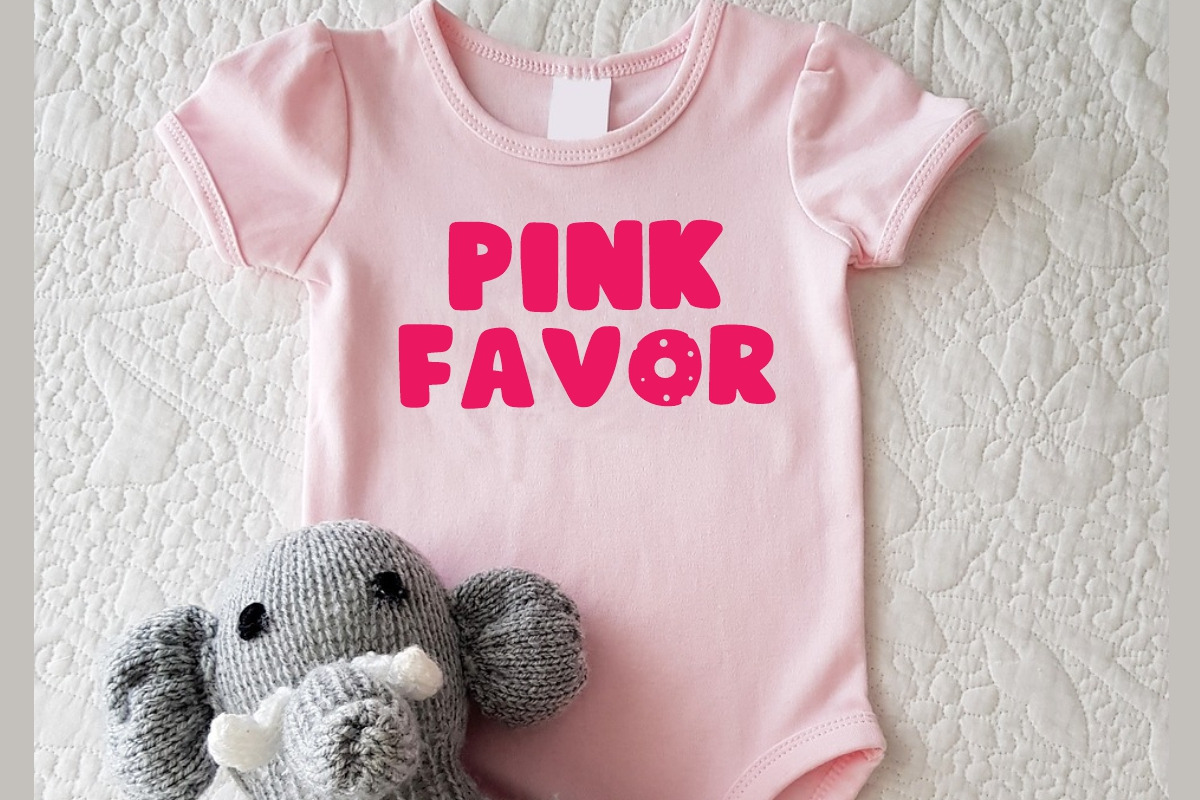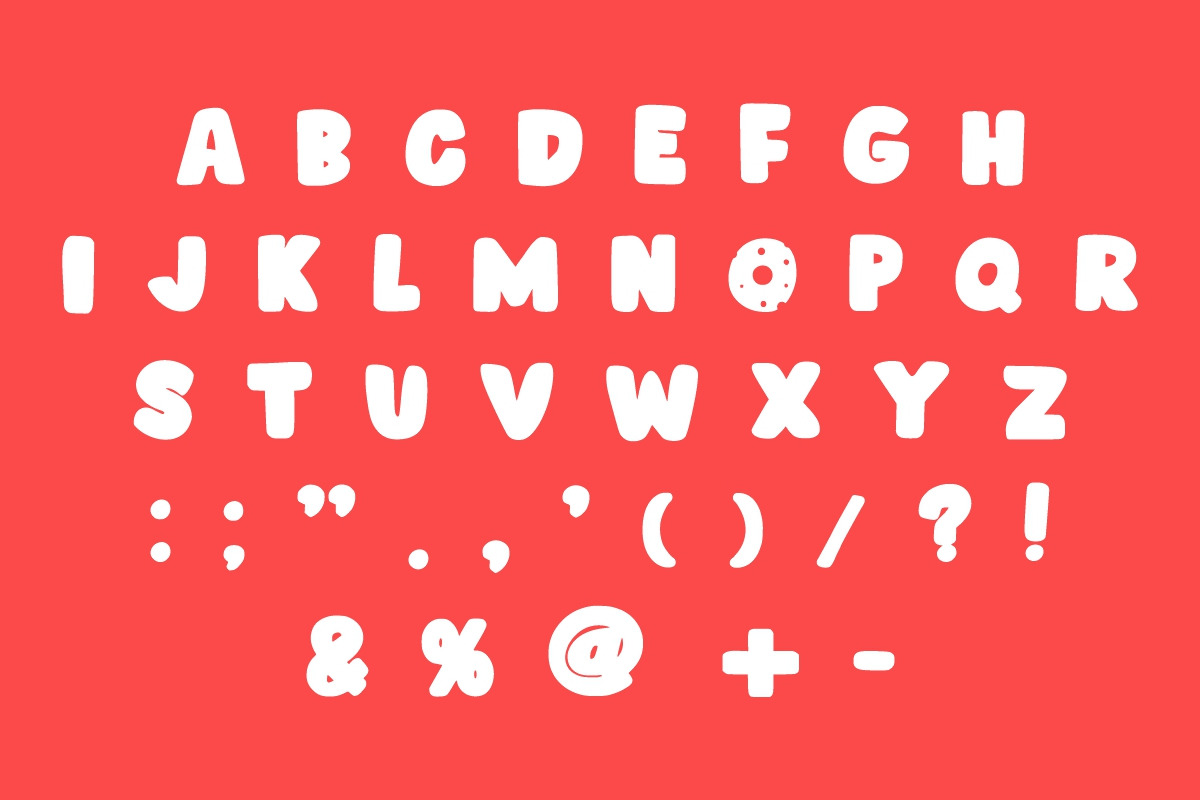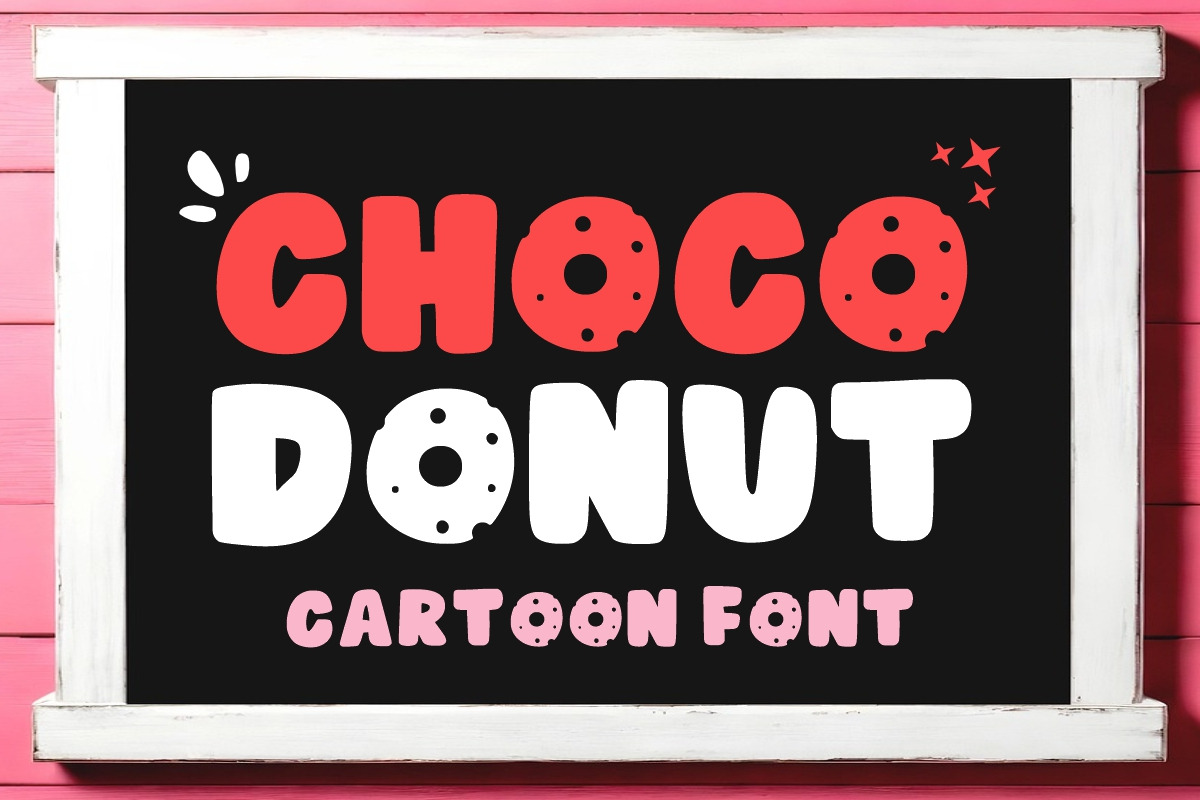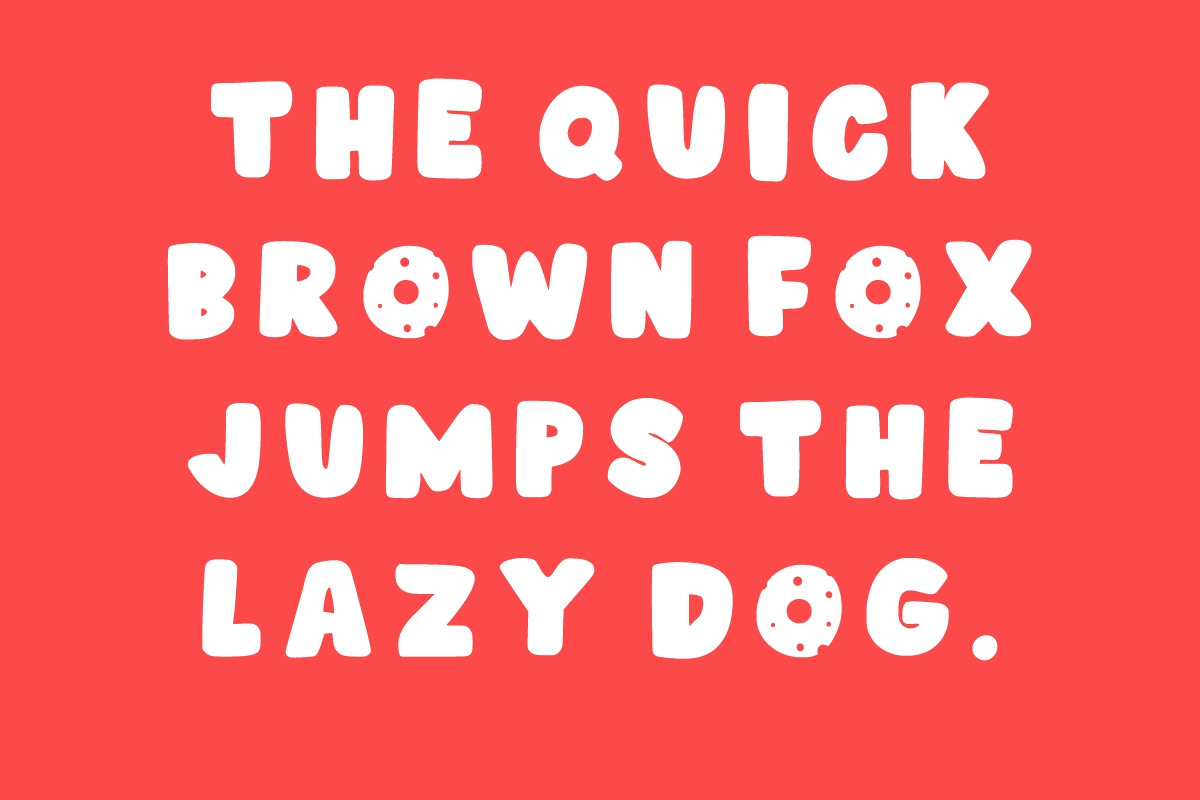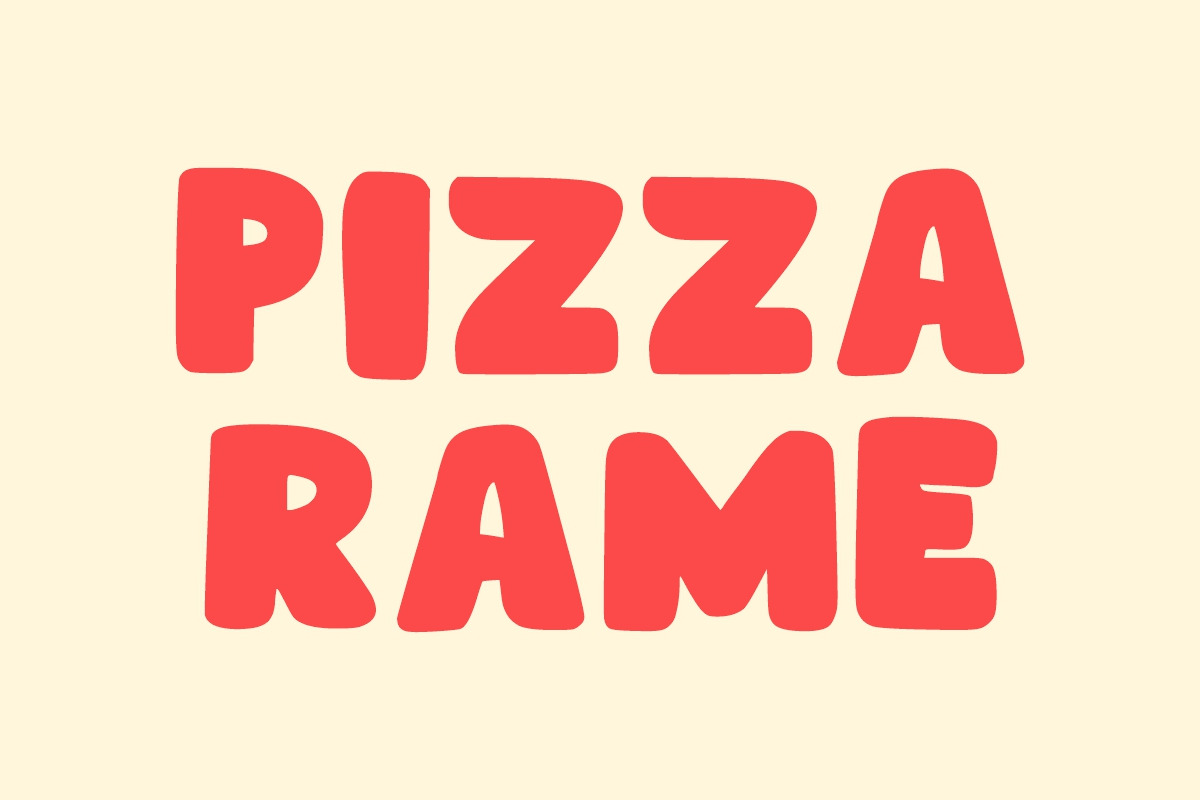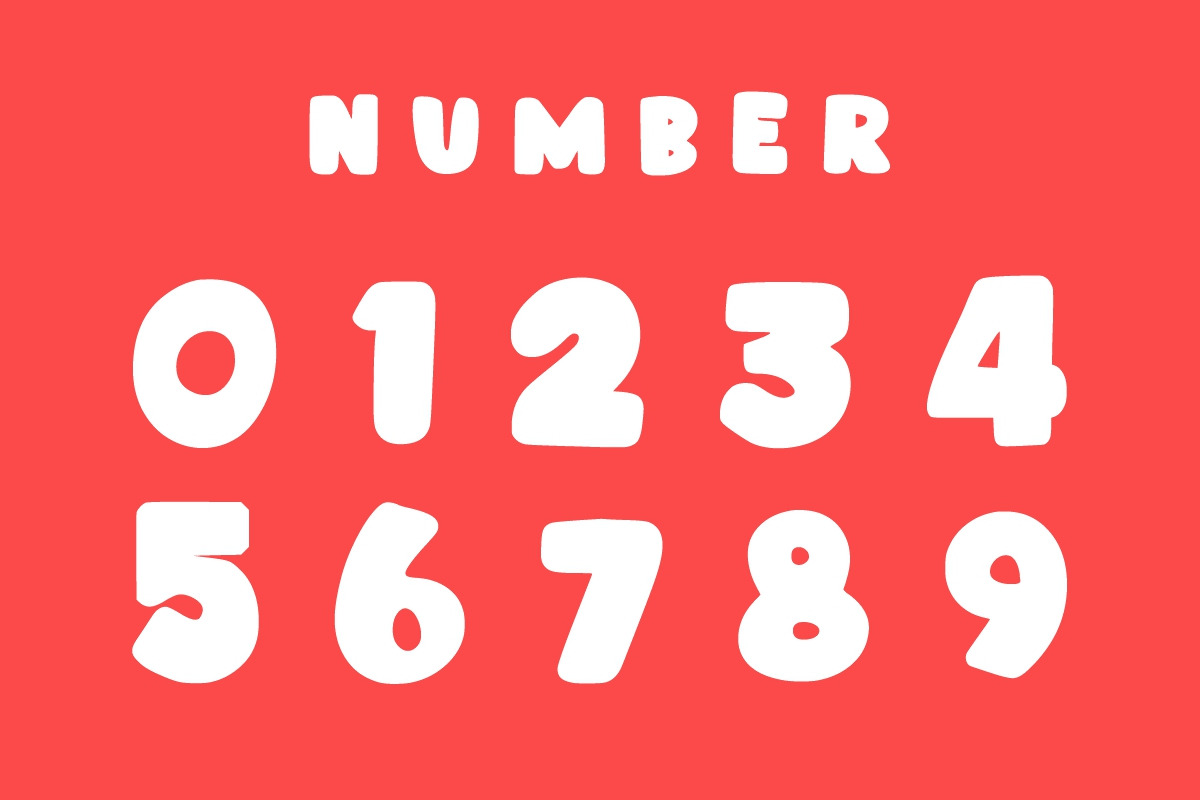
Choco Donut Sweet Font
Choco Donut is a fun and bold cartoon display font. It is suitable for any winter and holiday branding project, product packaging, invitation, quote, t-shirt, label, poster or anything that needs a touch of joy.